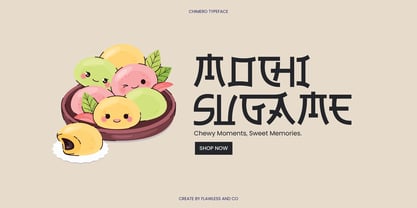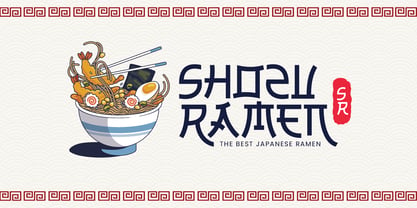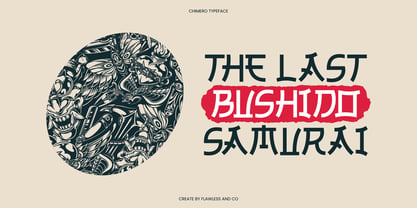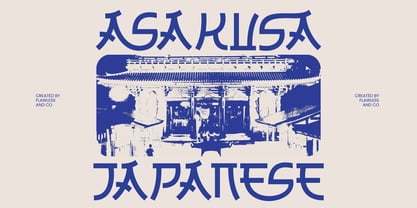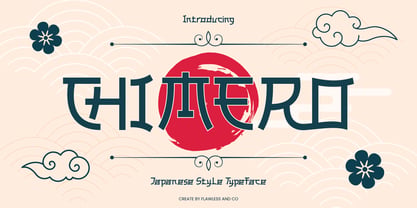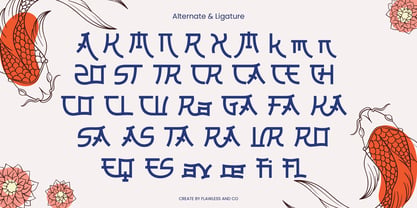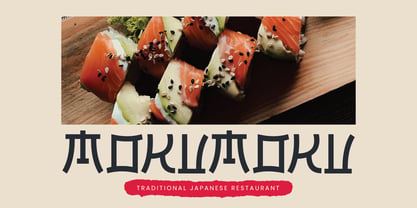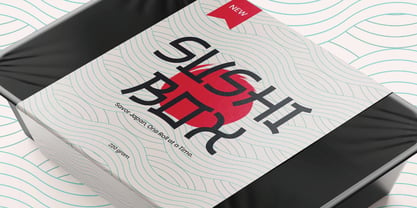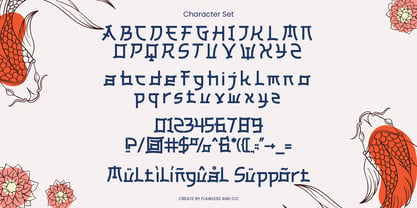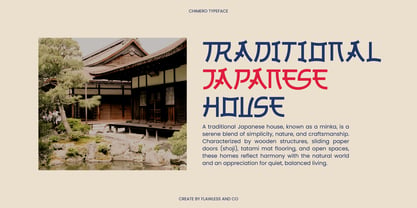
Chimero
by Flawlessandco
The Chimero Font Family was designed by Achmad Yani and published by Flawlessandco. Chimero contains 1 styles. More about this family
CHIMERO is a unique display font inspired by traditional Japanese aesthetics, crafted to bring cultural depth and visual intrigue to your designs. With sharp strokes and geometric balance, CHIMERO blends modern typographic structure with classic Eastern character shapes. Perfect for projects that seek to capture the spirit of Japanese design—such as menus, branding for Asian cuisine, apparel, logos, posters, or game interfaces—this typeface evokes a bold, authentic presence. Each letterform is a harmonious blend of strength and tradition, making your message feel both artistic and iconic.
Features :
Multilingual, Uppercase alphabet A-Z, Lowercase alphabet a-z, Numbers 0-9, Some punctuation. Alternates & Ligatures
Designers: Achmad Yani
Foundry: Flawlessandco